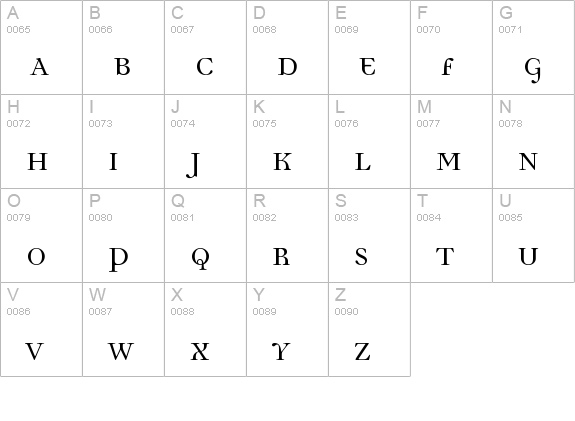
Democratica font is a modern and sleek typeface that exudes elegance and sophistication. With its clean lines and contemporary design, Democratica is perfect for a wide range of design projects, from branding to editorial layouts. The font features a balance of geometric shapes and smooth curves, giving it a timeless and versatile appeal. What sets Democratica font apart is that it is available for free download at FontsMarket.com. This means that designers and creatives can easily access this high-quality font without any cost, making it a valuable addition to any font library. Whether you're working on a website, poster, brochure, or any other project, Democratica font is sure to elevate your design with its polished and professional look. Unlock your creativity and download Democratica font today to bring your designs to the next level.